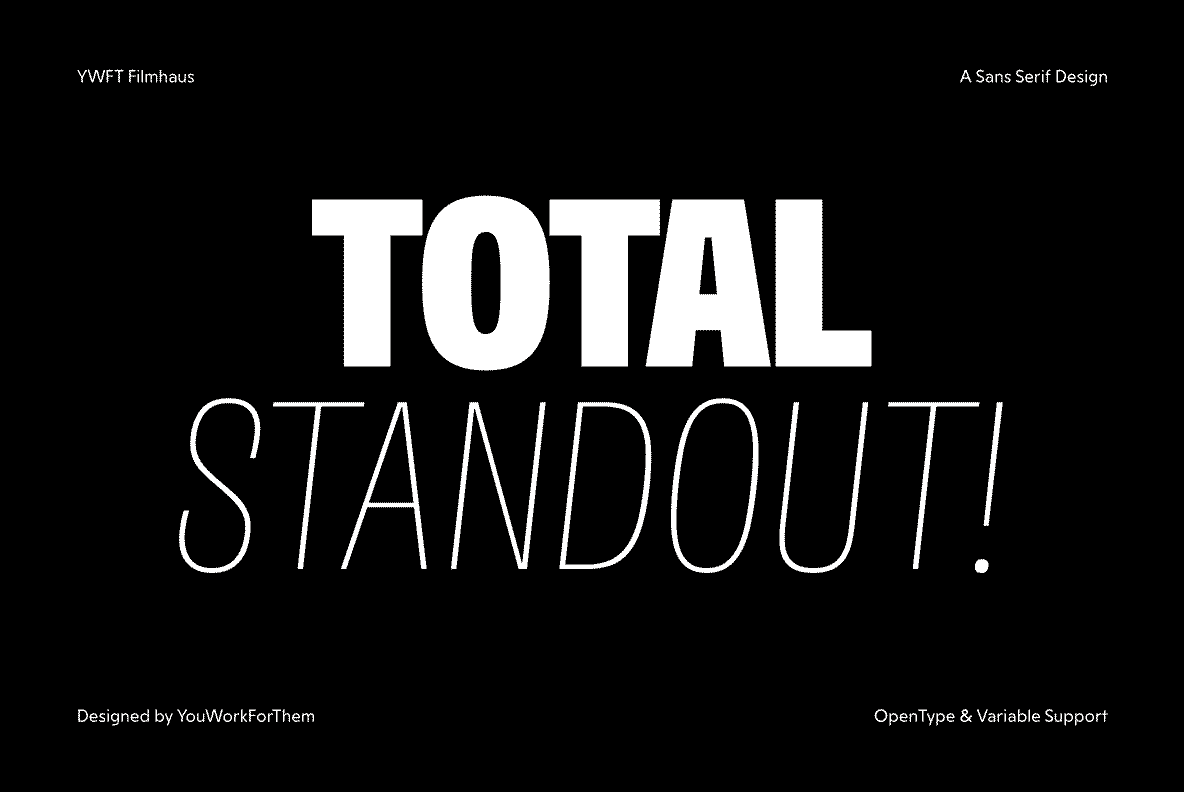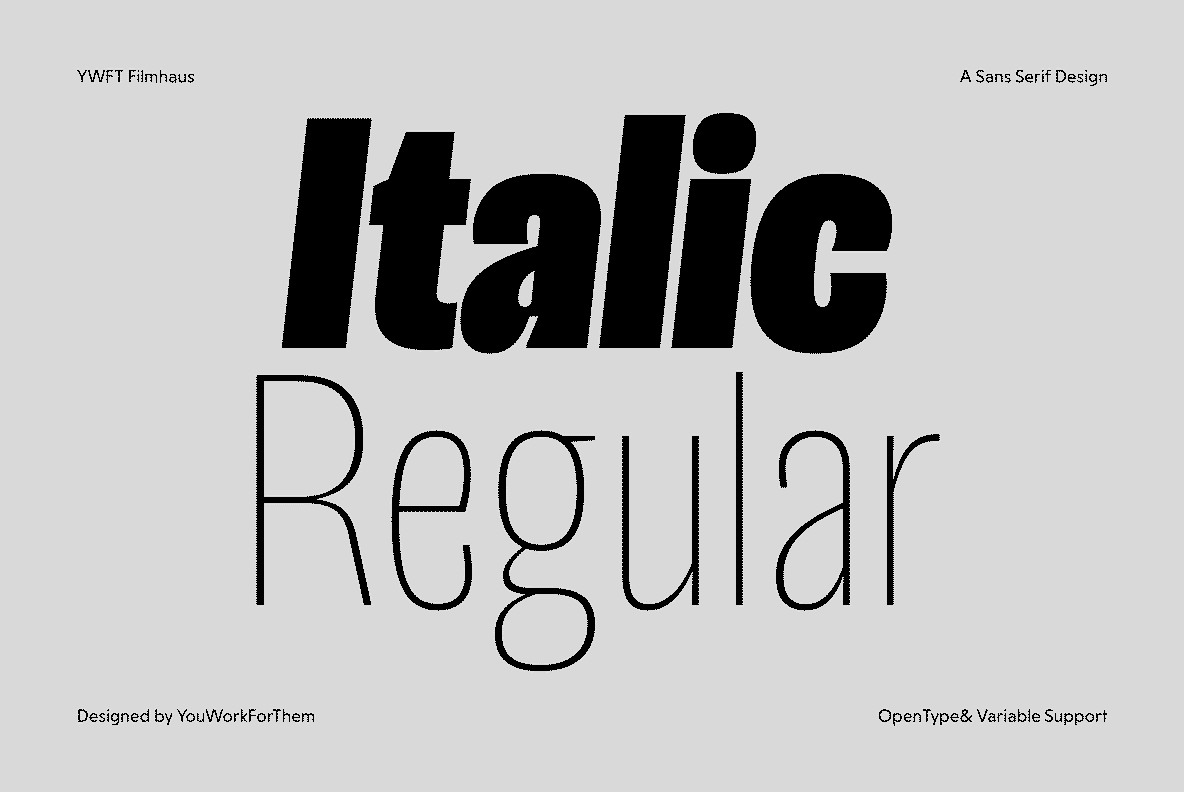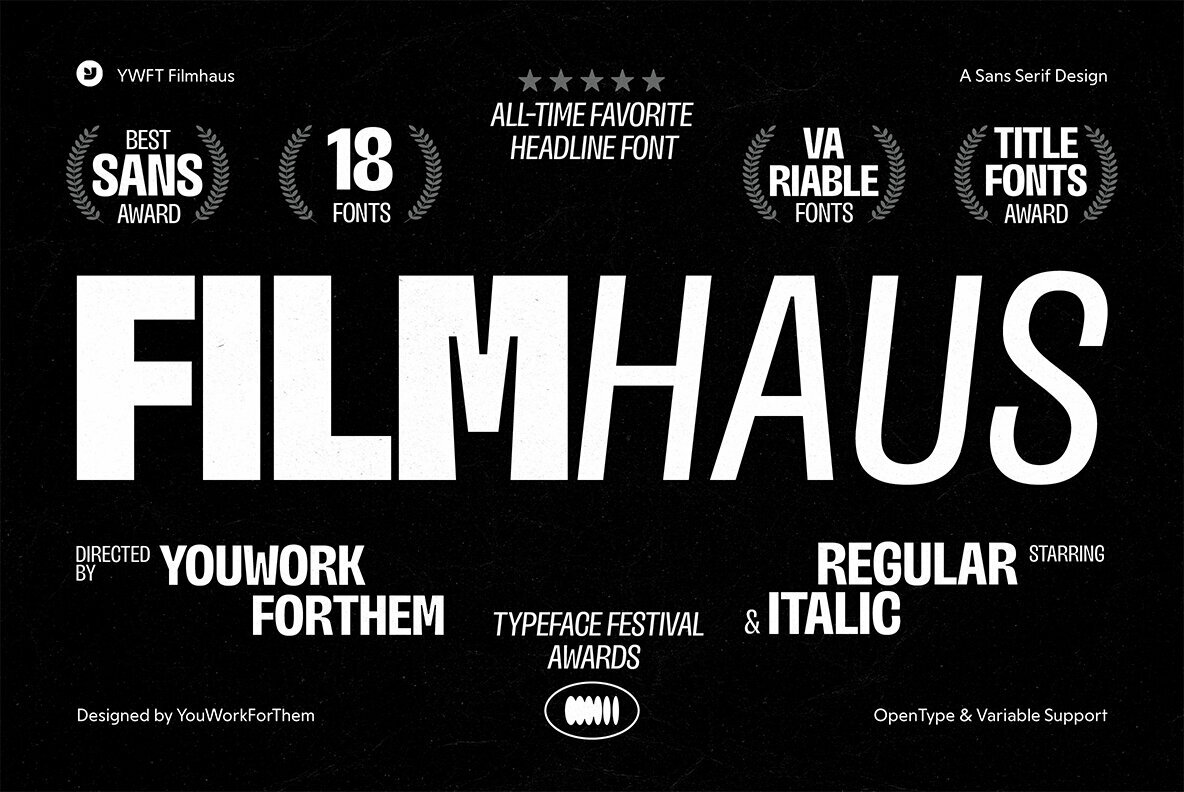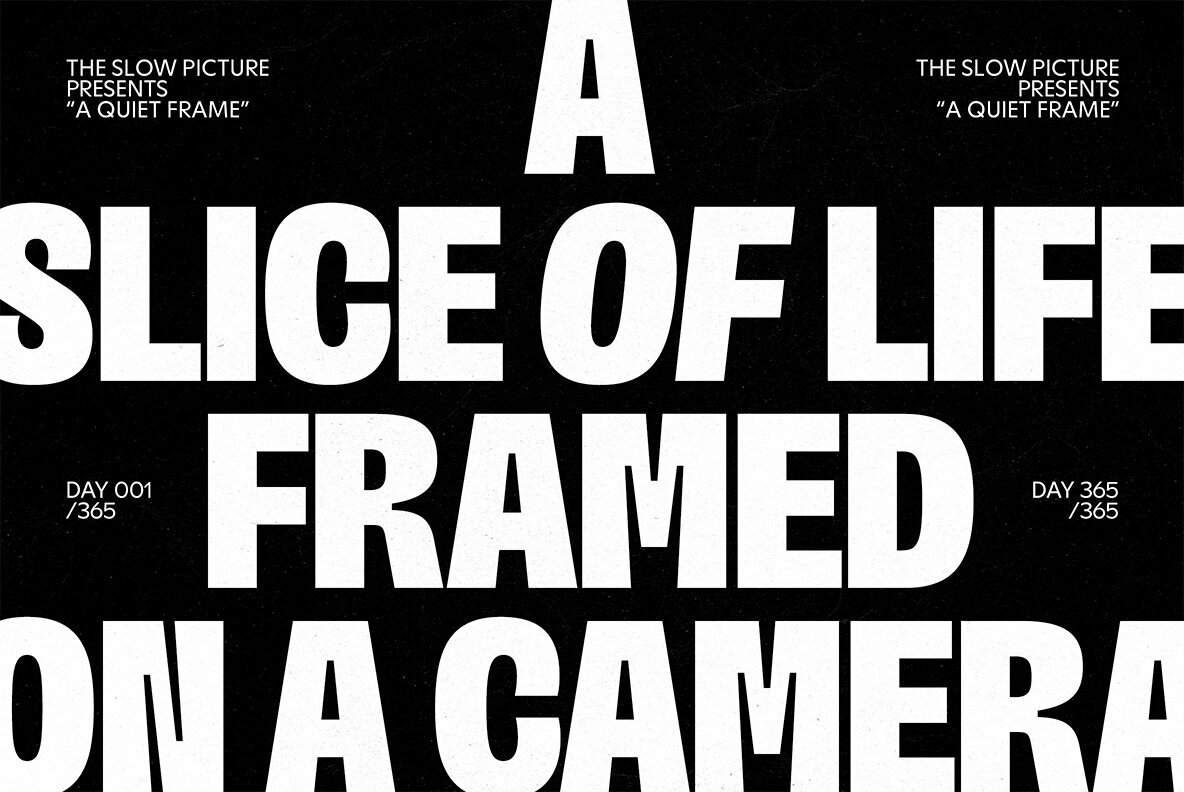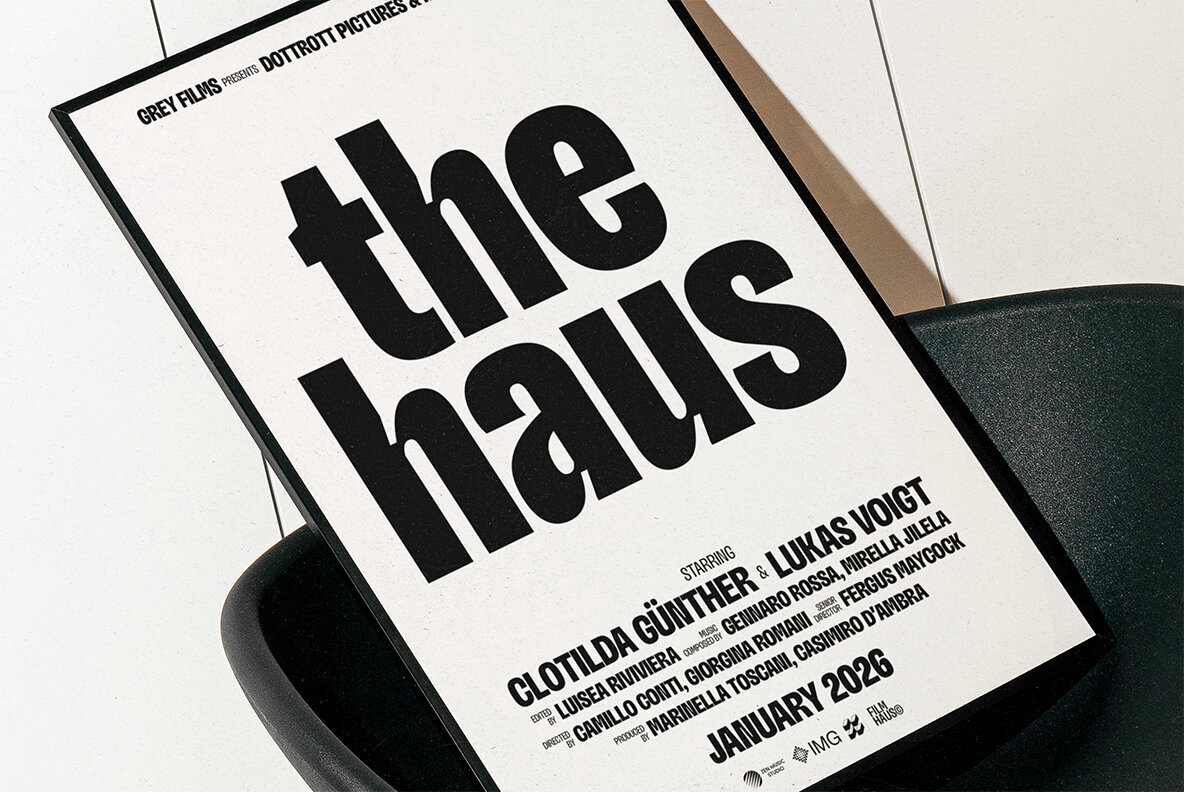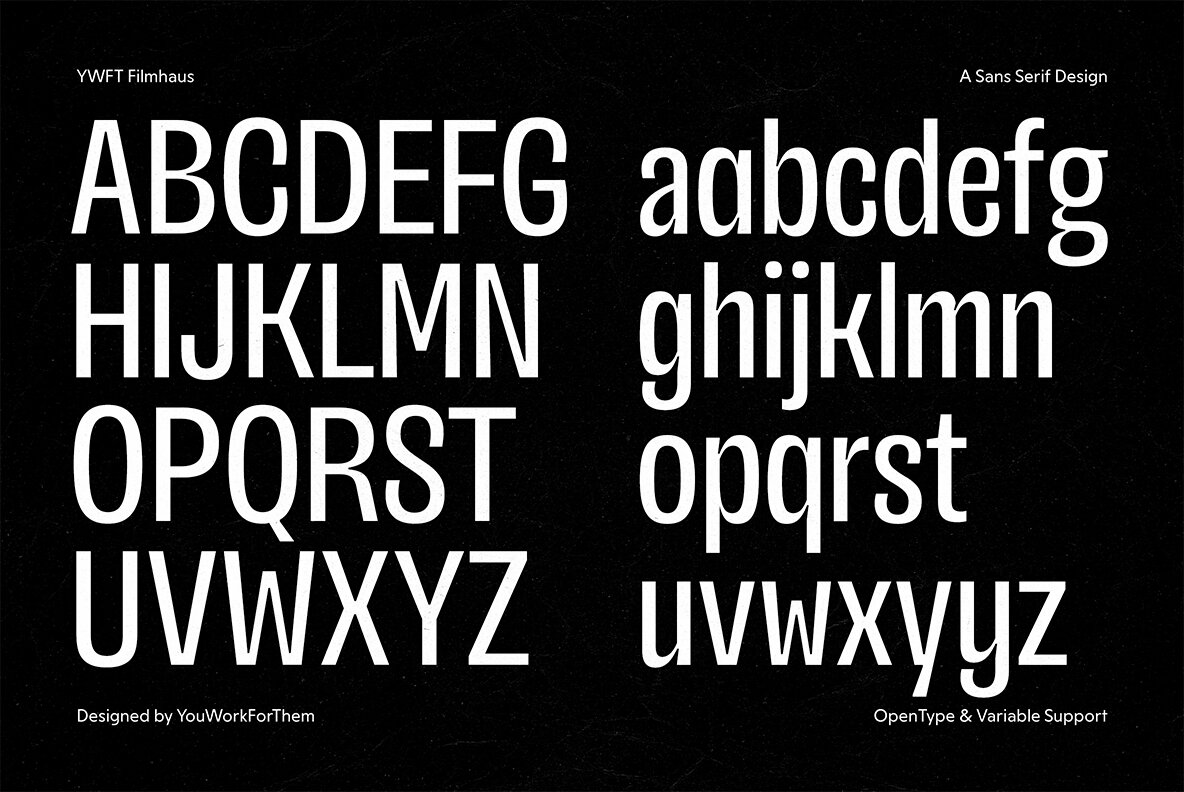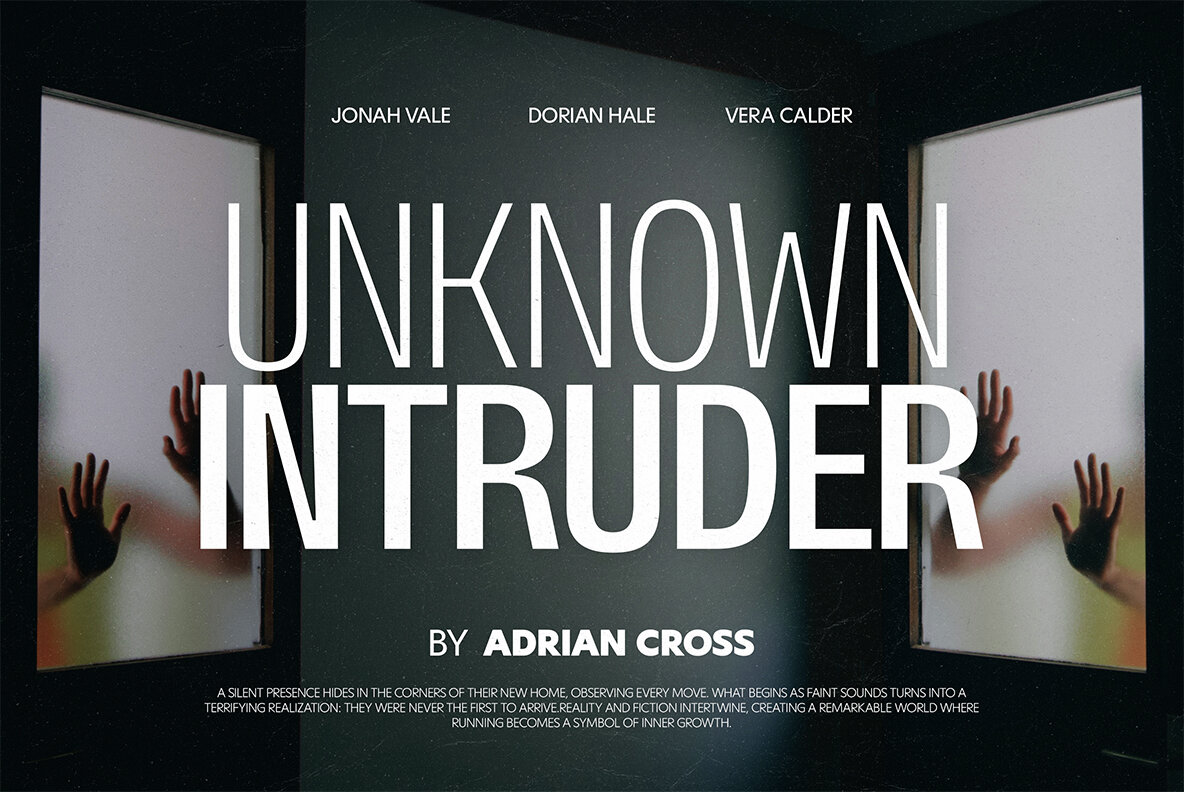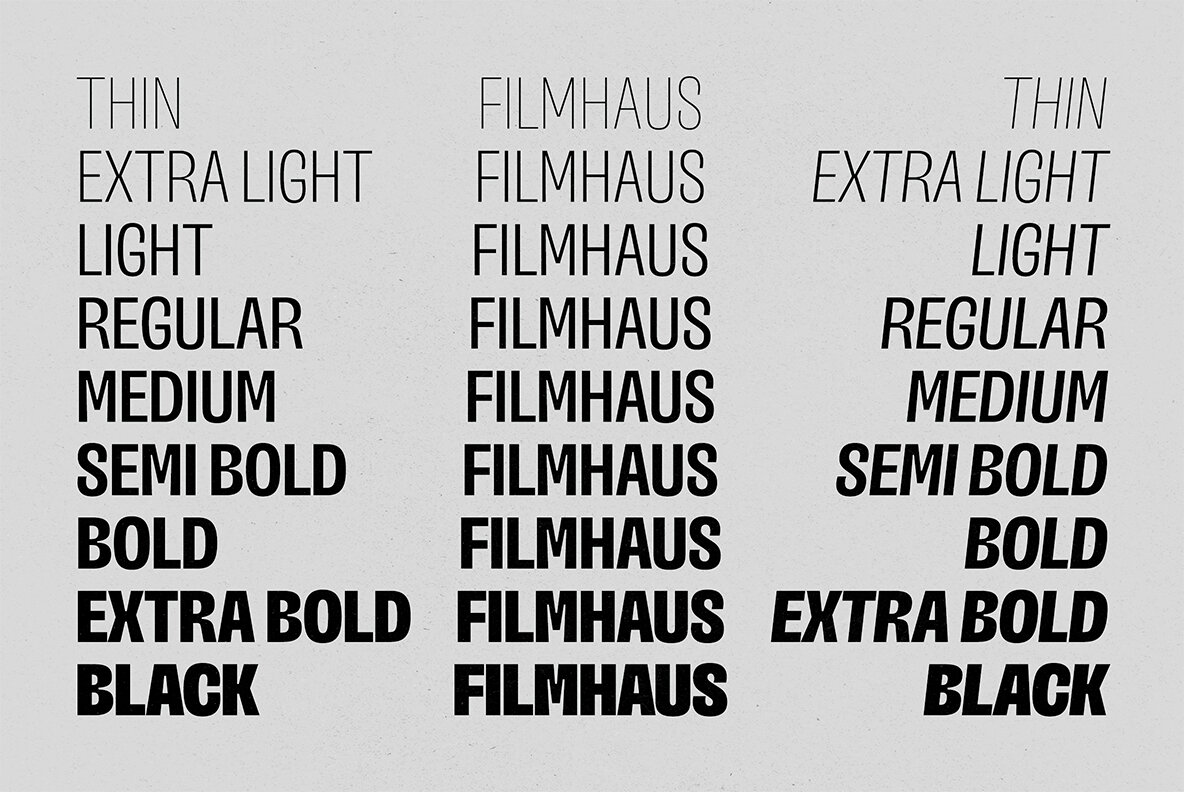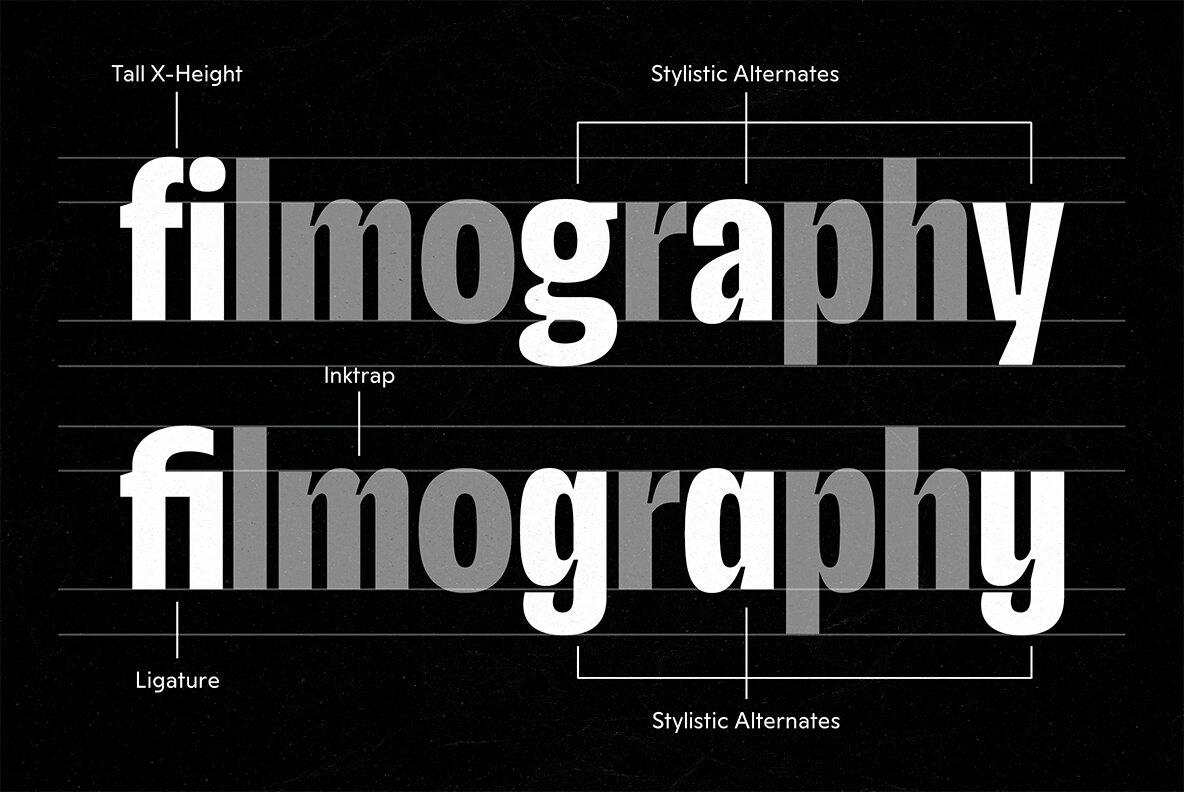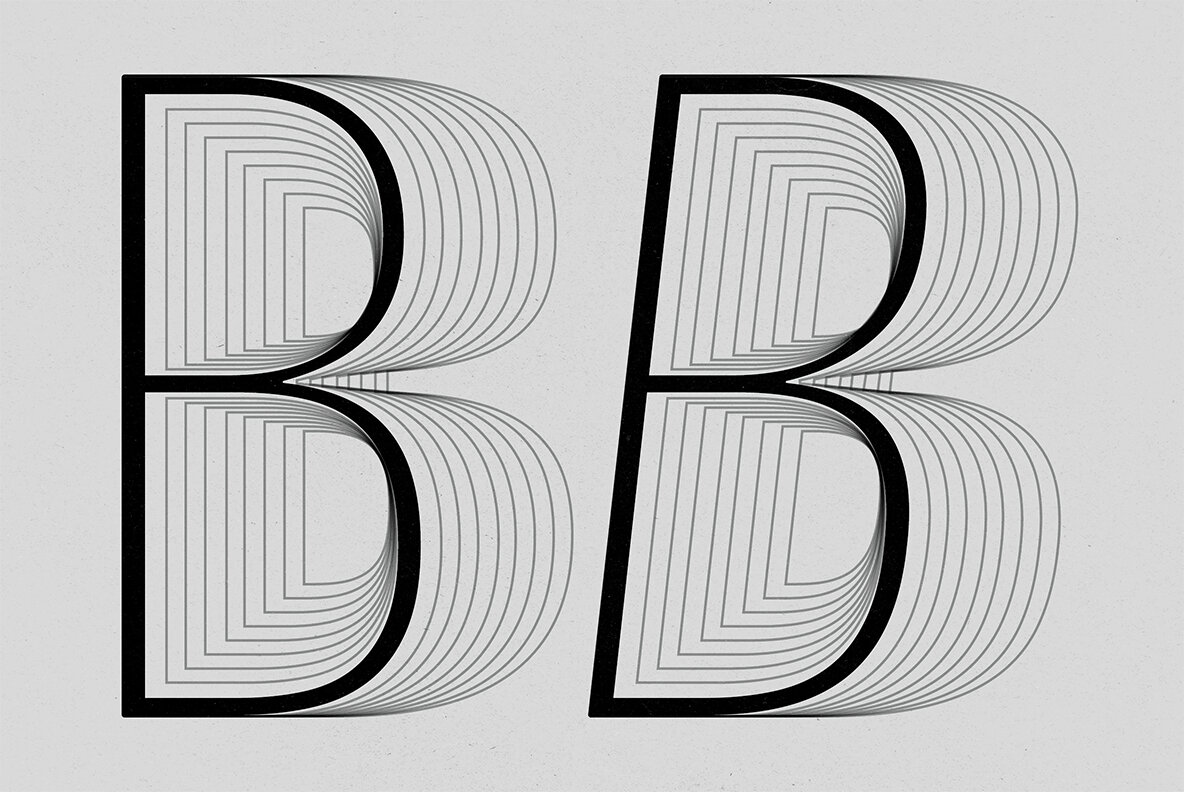
YWFT Filmhaus Font
YWFT Filmhaus is a condensed sans-serif typeface designed for projects where space and impact converge. Perfect for YouTube thumbnails, TikTok reels, vertical stories, cinematic posters, and any format requiring a distinct headline, Filmhaus blends clean geometry with a high x-height for clarity on both large and compact screens. Its visual strength meets the needs of digital-first designers seeking both presence and efficiency. Filmhaus extends beyond a simple headline font. Its family comprises nine precise weights with corresponding italics, totaling eighteen options for broad creative application. A variable font version provides responsive typographic control, serving brand identities, editorial compositions, and UI design with adaptability and performance. Features: Filmhaus incorporates 640 glyphs per style, supporting advanced OpenType features for robust typesetting. This includes stylistic alternates, case-sensitive forms, fractions, superscripts, subscripts, old-style and lining figures, scientific inferiors, historical forms, localized letterforms, ordinals, denominators, and more. The result is a typeface equipped for both display intensity and complex, multilingual layouts. Filmhaus offers a striking balance between bold vertical tension and refined legibility. Its uniform, straight-edged letterforms deliver a commanding presence for posters and motion graphics, while maintaining clarity across varied digital environments. Designed exclusively for YouWorkForThem, Filmhaus stands as a reliable asset for design professionals with a focus on originality and precision. Additional products used for slideshow images:YWFT Filmhaus: Condensed Sans-Serif for Digital Storytelling
Comprehensive Typeface Family
Professional OpenType Features
Balanced Impact and Readability